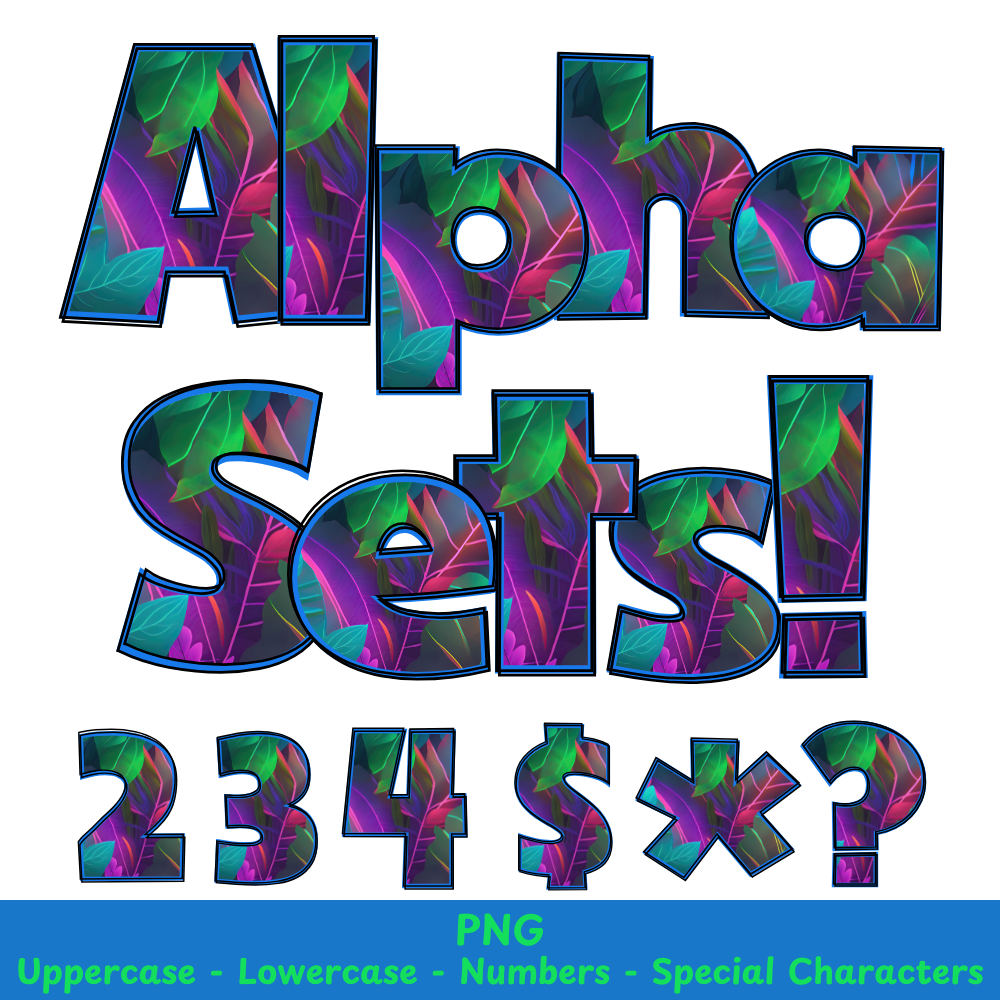
Tropical Leaves PNG Font
Tropical Leaves Alpha Set PNG Font Pack
Enhance your crafts and projects with our Tropical Leaves PNG Font. Utilizing real tropical leaves, this font adds a unique and natural touch to any design. Perfect for sublimation and other creative uses.